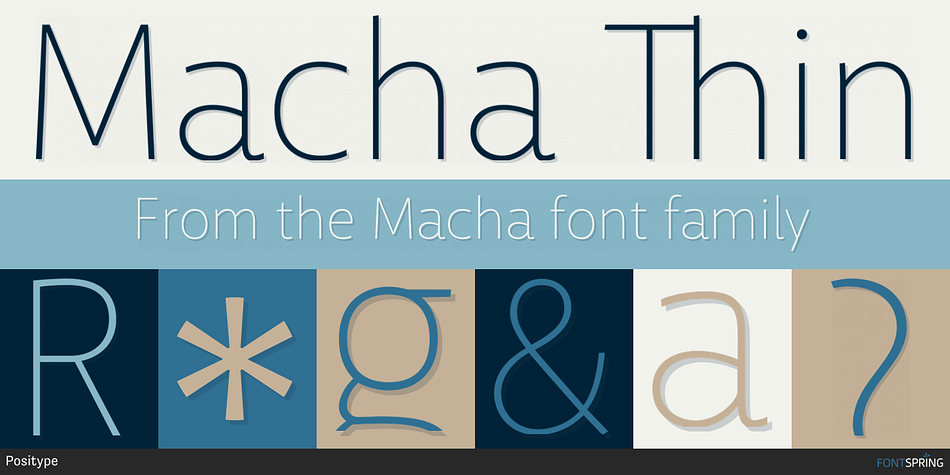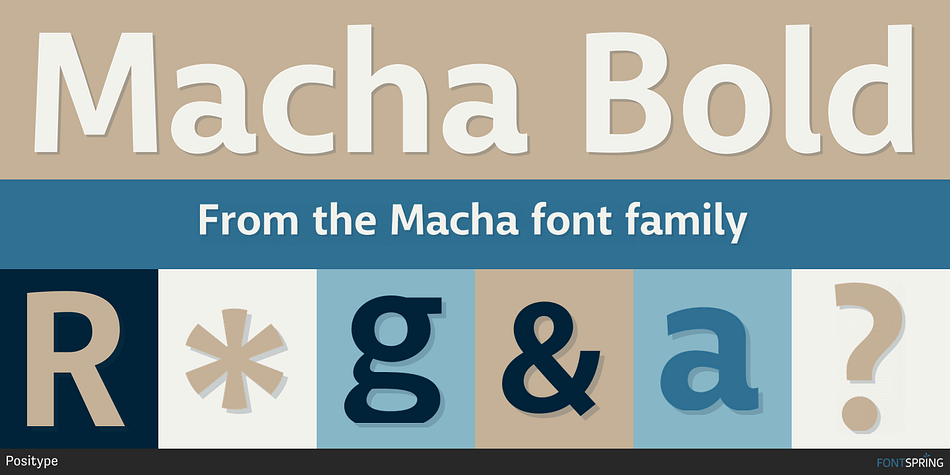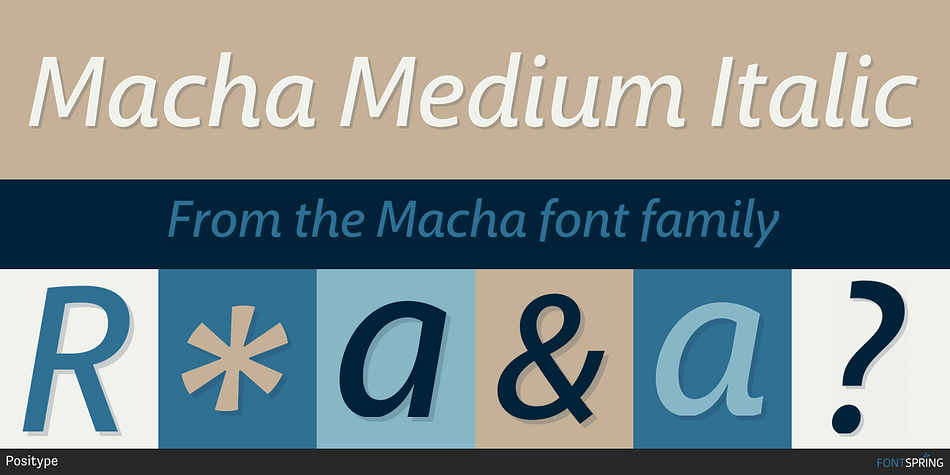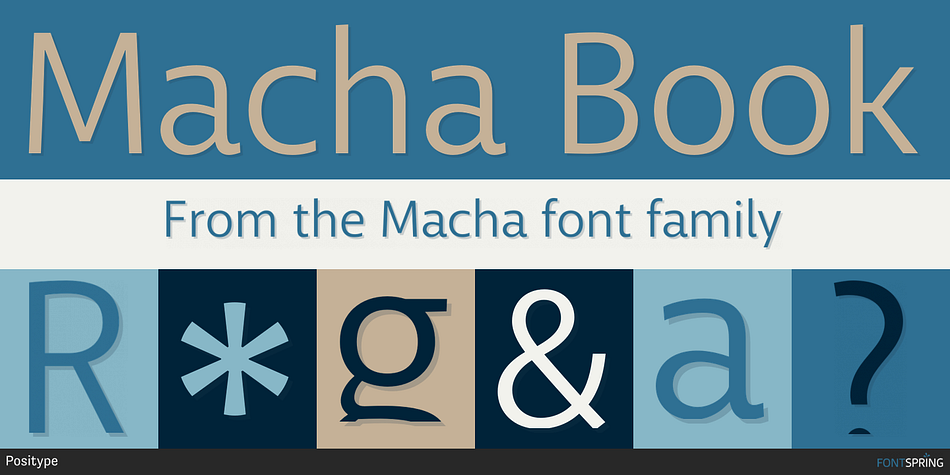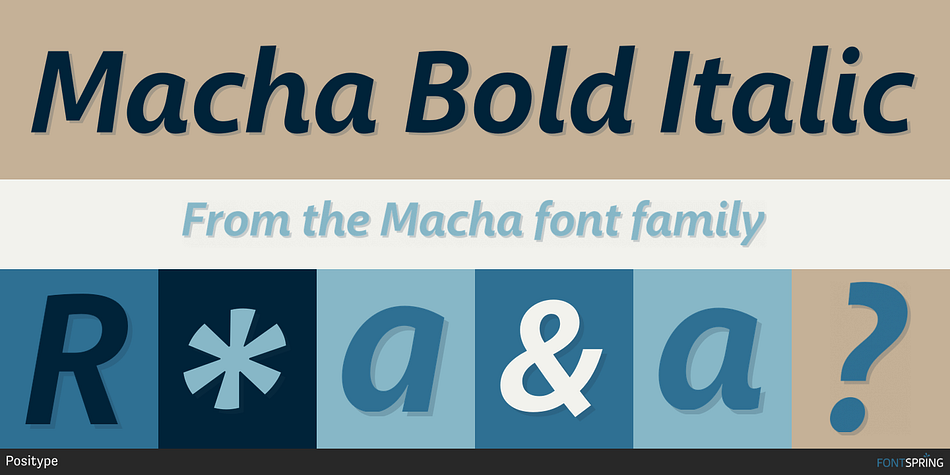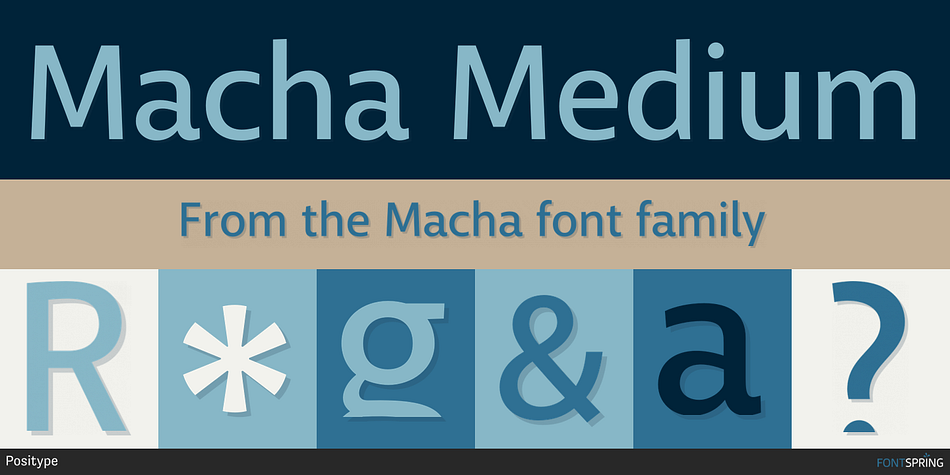
Designed by Neil Summerour, Macha is a sans serif font family. This typeface has eight styles and was published by Positype.
Macha shares the same DNA as its sibling Anago, but is a completely different species than the former or any of my other sans serifs (Aaux Next, Air, Akagi Pro or Wasabi). It’s no-nonsense construction bears many influences from Gill Sans and Frutiger while stubbornly blending my own humanist touch. The focus on developing Macha was just to get to the point with each letterform and discard the rest.
Macha takes a little but gives a lot. A fully-loaded character set includes: Small Caps, Proportional Lining and Oldstyle Numerals, Tabular Lining and Oldstyle Numerals, Fractions, Ordinals, Inferiors, Superiors, Stylistic Alternates, Ligatures, Case-sensitive, and more.